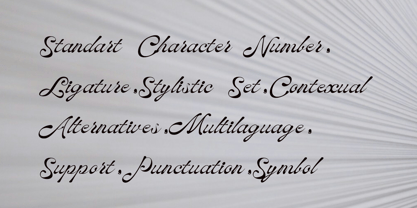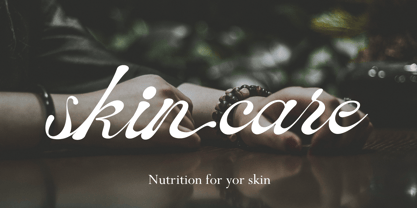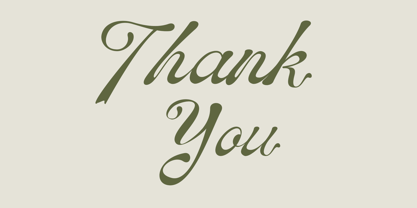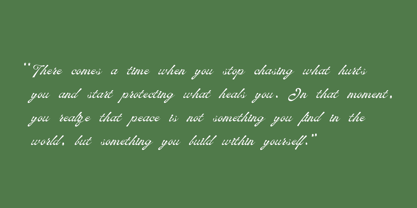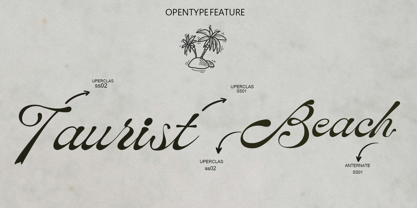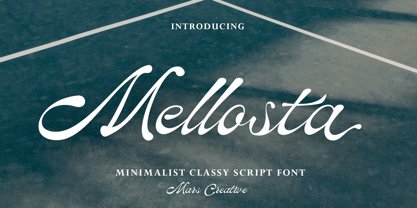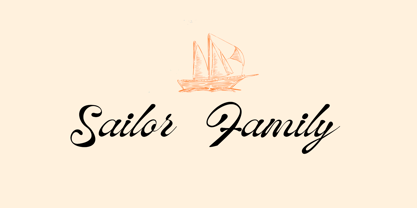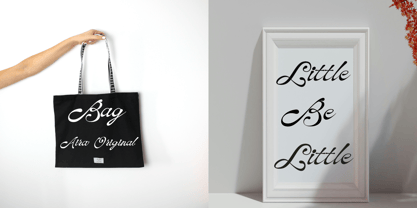
Mellosta
Mellosta is a minimalist classy script font that blends timeless elegance with a modern touch. Its smooth, flowing strokes create a refined and graceful appearance, delivering a sense of sophistication without excess. Carefully crafted letterforms ensure balance, clarity, and visual harmony in every word. Perfect for luxury branding, logos, fashion designs, invitations, packaging, editorials, and social media content, Mellosta adds a subtle yet powerful charm to any creative project. With its clean curves and elegant rhythm, this font enhances visual identity and leaves a lasting, premium impression. If you’d like, I can also provide a short tagline, marketing-style description, or product listing copy for font marketplaces.